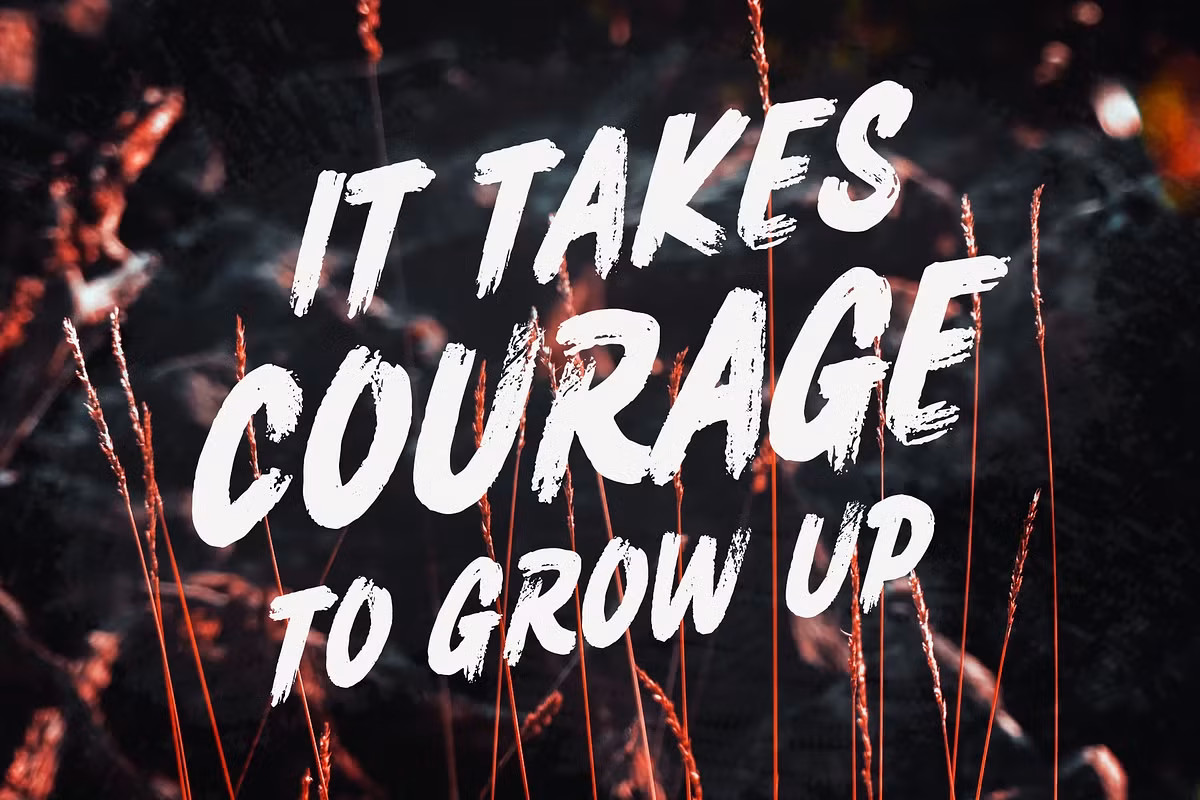
RUSHK - Dry Brush Font Free Download
RUSHK – Dry Brush Font Free Download is a gritty and expressive typeface that captures the raw energy of hand-painted brush strokes. Perfect for music covers, streetwear branding, posters, and edgy social media graphics, RUSHK brings bold personality and artistic impact to your designs. Please note that you must purchase this font for commercial use, but it is available as a free download for testing purposes. Make your message impossible to ignore with RUSHK – Dry Brush Font Free Download, and infuse your work with rebellious attitude and dynamic texture.